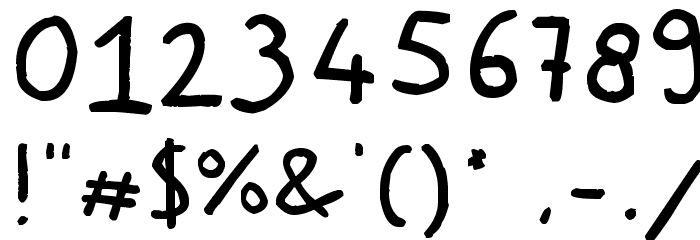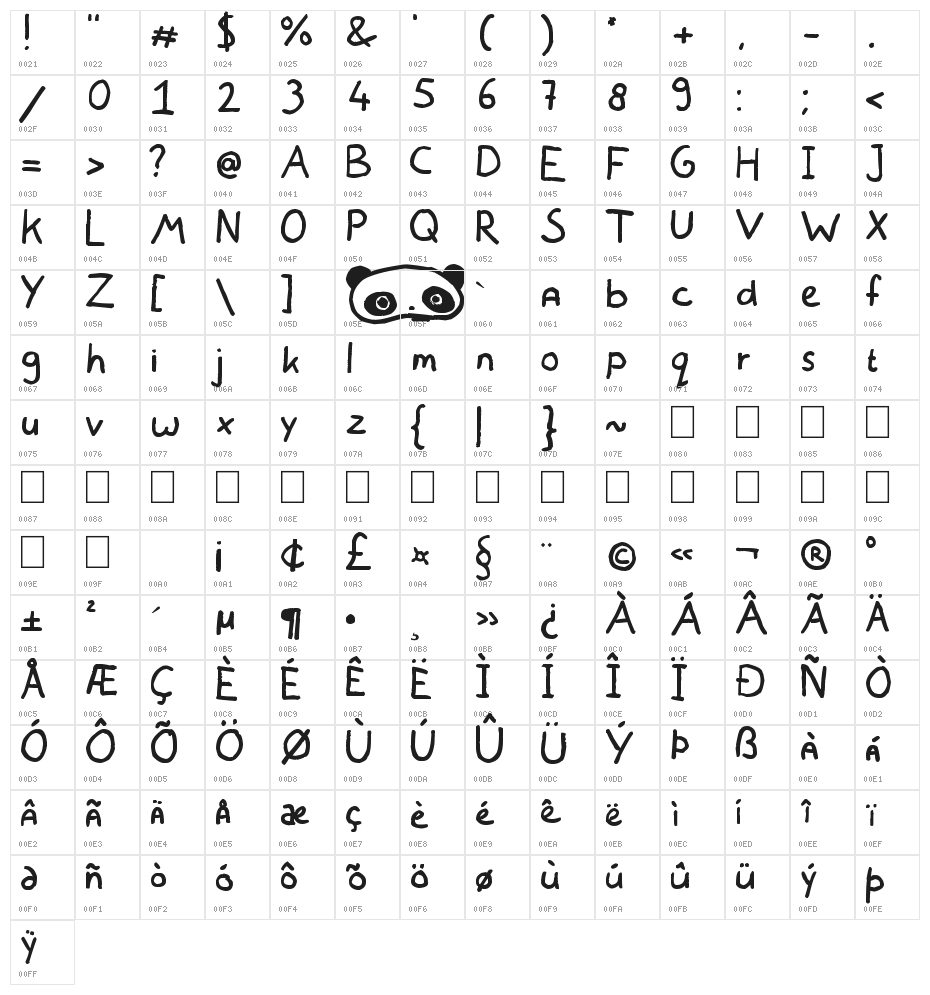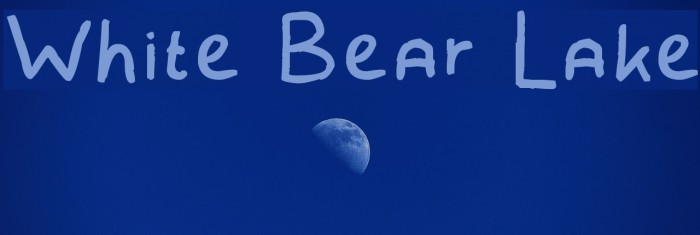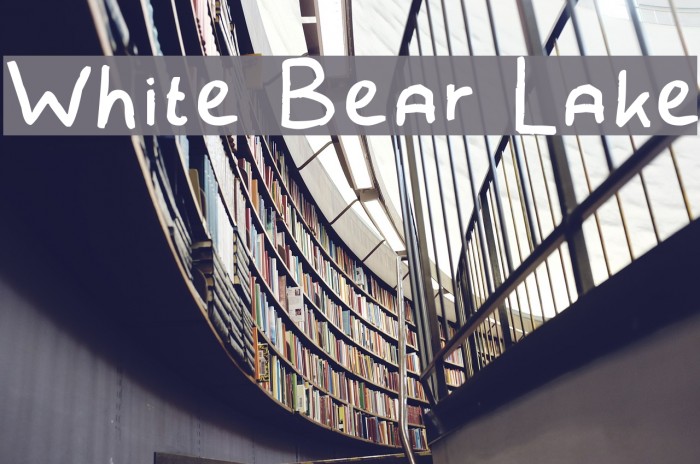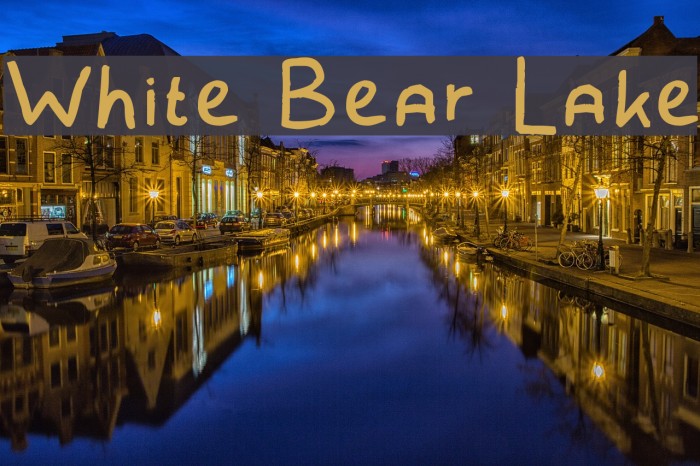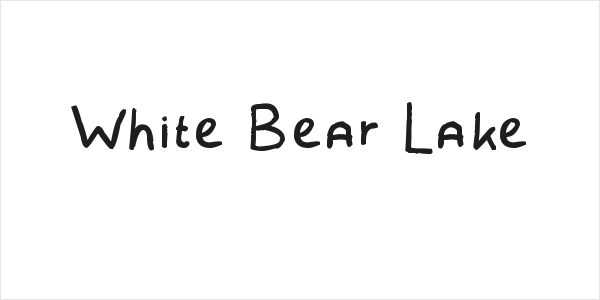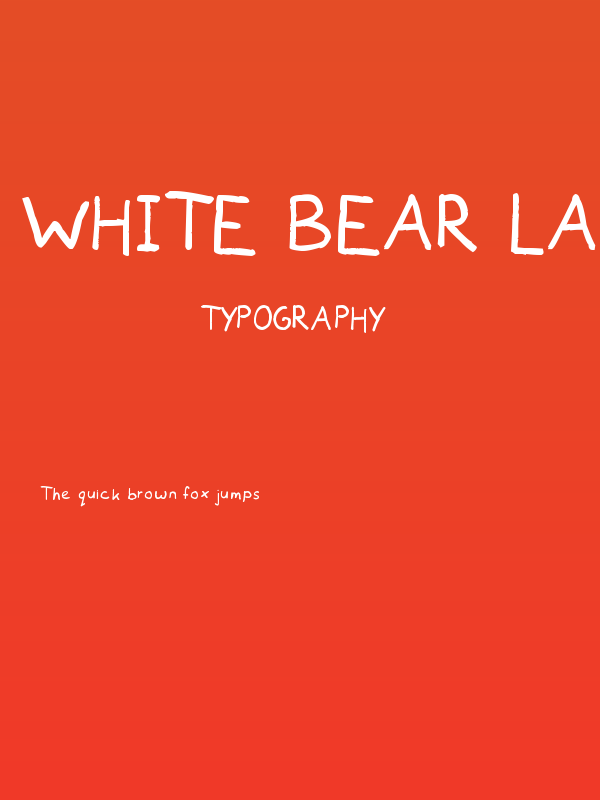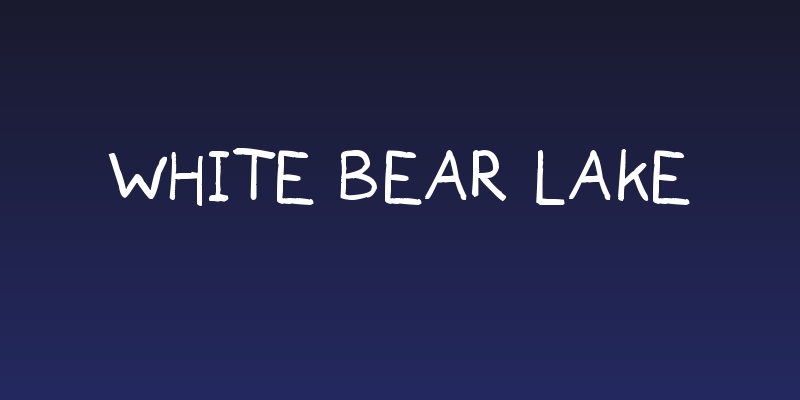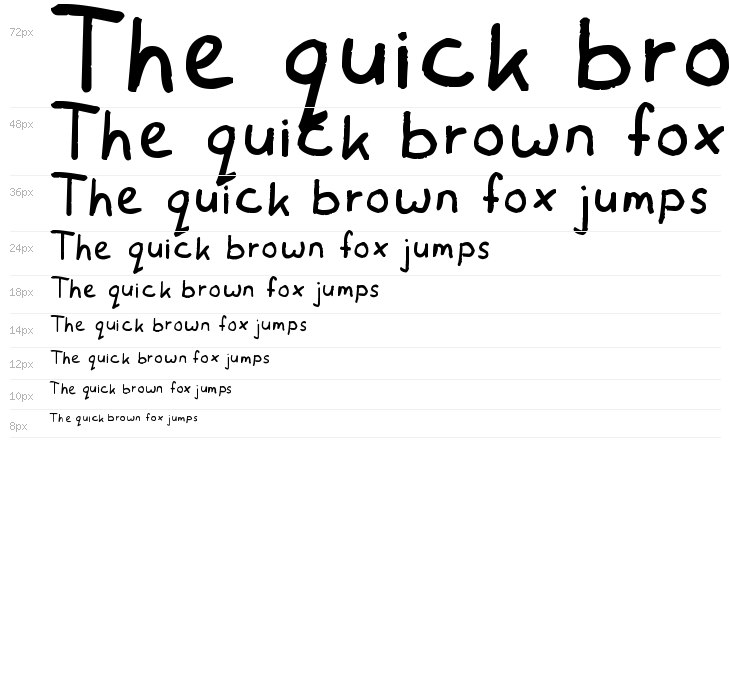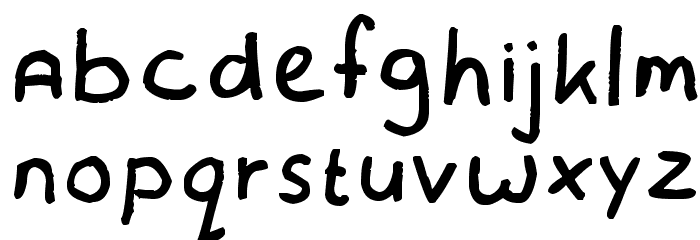
White Bear Lake Font
White Bear Lake Description
This font features a playful and informal style, characterized by its hand-drawn appearance. The letters have a slightly uneven baseline, adding to the casual and friendly feel. The strokes are consistent in width, giving it a uniform look despite its informal nature. The characters are rounded with soft edges, which enhances the approachable and whimsical aesthetic. The numerals and special characters maintain the same playful style, making the font versatile for various uses. Overall, it exudes a sense of creativity and spontaneity, making it suitable for projects that require a personal touch.
| Proposed Projects | Ideal for children's books, greeting cards, casual branding, and creative projects. |